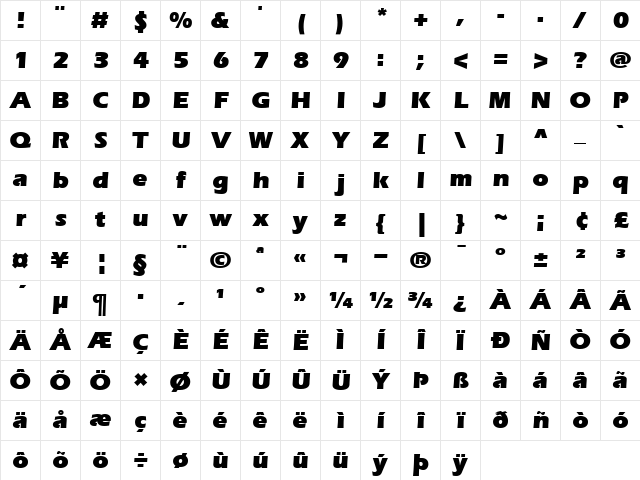
ITCEras-Ultra UltraItalic
Style: UltraItalic
Design Context for ITCEras-Ultra
ITCEras-Ultra is a composed and adaptable typeface that performs quietly and consistently across a wide range of design contexts. The slanted form adds forward momentum and visual energy.
Pro Tip: Use ITCEras-Ultra for emphasis, pull quotes, and subheadings where its slanted energy can add rhythm to the layout.